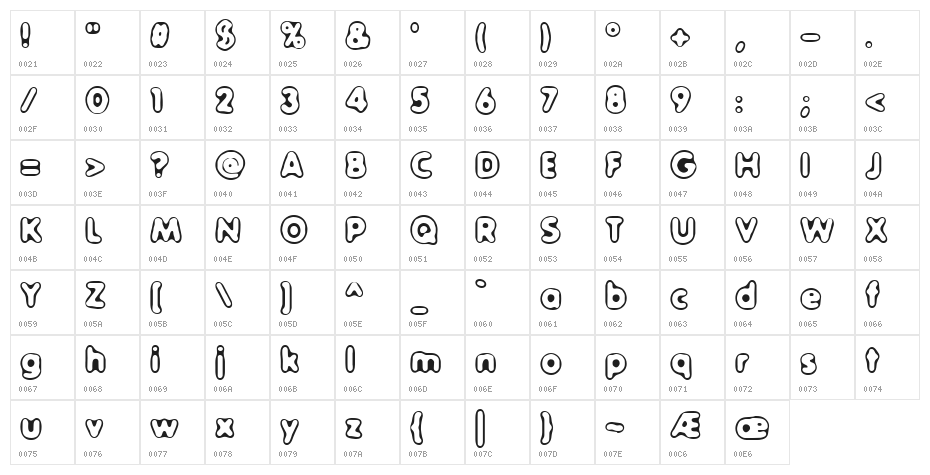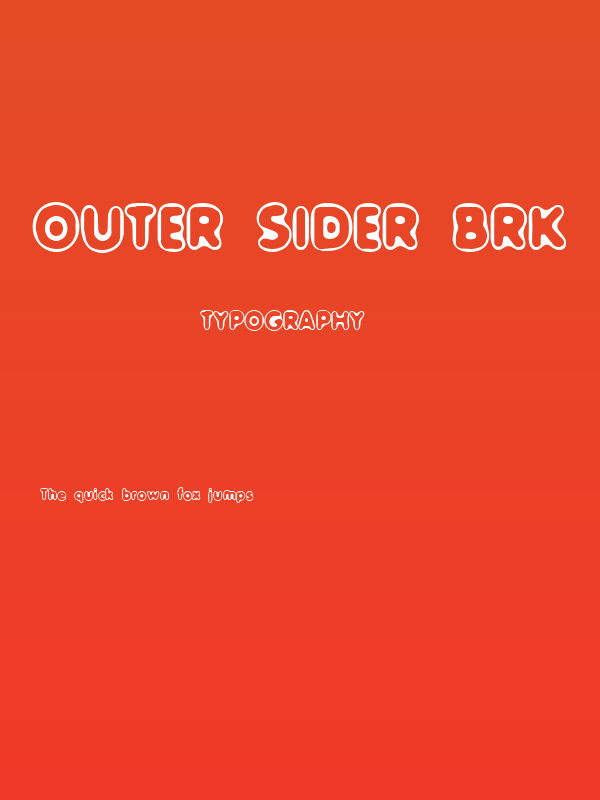
Outer Sider BRK Font
Outer Sider BRK Description
This playful and bold font features a bubble-like, rounded design with thick outlines that give it a cartoonish and fun appearance. The characters are evenly spaced, maintaining a consistent width throughout. The uppercase and lowercase letters share a similar style, enhancing the font's cohesive look. Numbers and special characters follow the same design principles, ensuring uniformity across all elements. The font's unique style makes it stand out, perfect for projects that require a touch of whimsy and creativity.
| Proposed Projects | Ideal for children's books, comic strips, playful branding, and party invitations. |